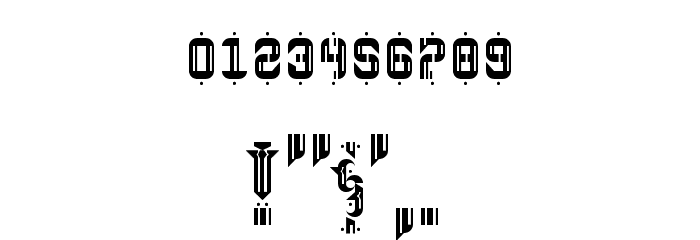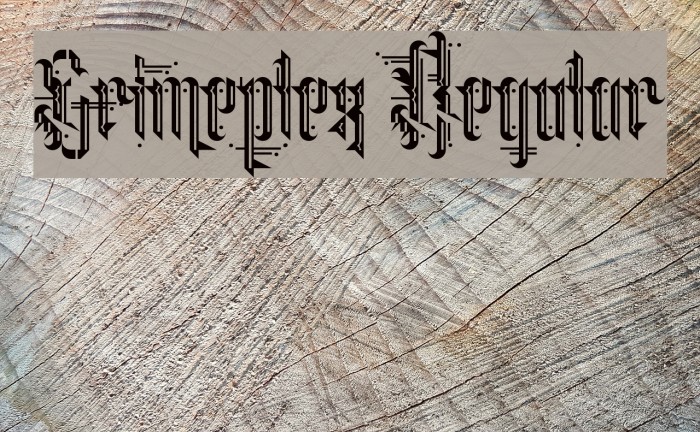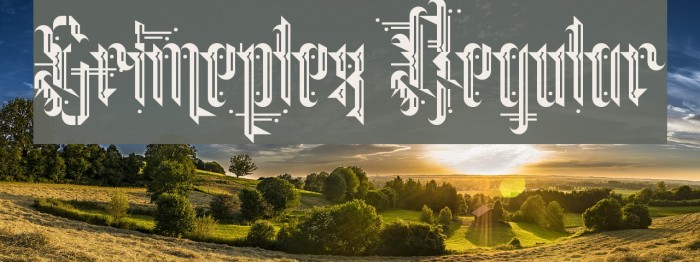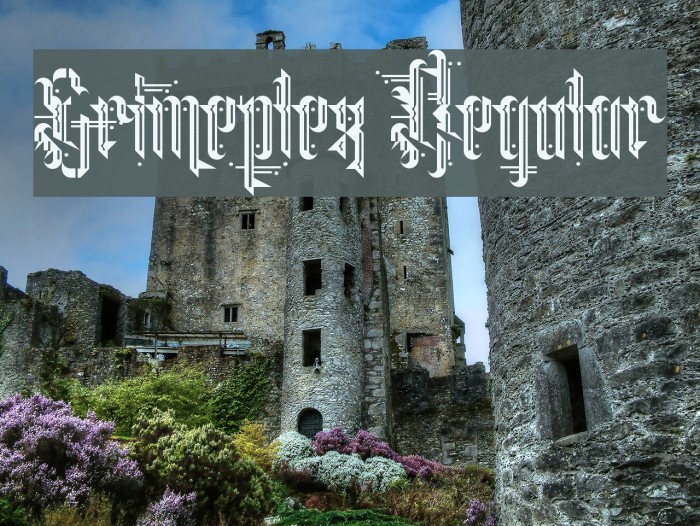
Grimeplex Regular Font
This font exhibits a striking blackletter style, characterized by its intricate and ornate letterforms. The design features sharp, angular strokes with a high level of detail, reminiscent of medieval script. Each character is adorned with decorative elements, giving it a distinct, historical appearance. The uppercase letters are particularly elaborate, with flourishes and embellishments that enhance their visual impact. The lowercase letters maintain a consistent style, ensuring readability while preserving the font's unique aesthetic. Numbers and special characters are crafted with the same attention to detail, making this font suitable for a variety of creative applications.
An ornate blackletter font with intricate, medieval-inspired design.
- Proposed Projects: Ideal for historical-themed projects, gothic designs, tattoos, and decorative headings.
- Category: Blackletter
- Character Spacing: Tight
- Overall Style: Vintage
- Use Case: Logos, Headlines, Decorative text